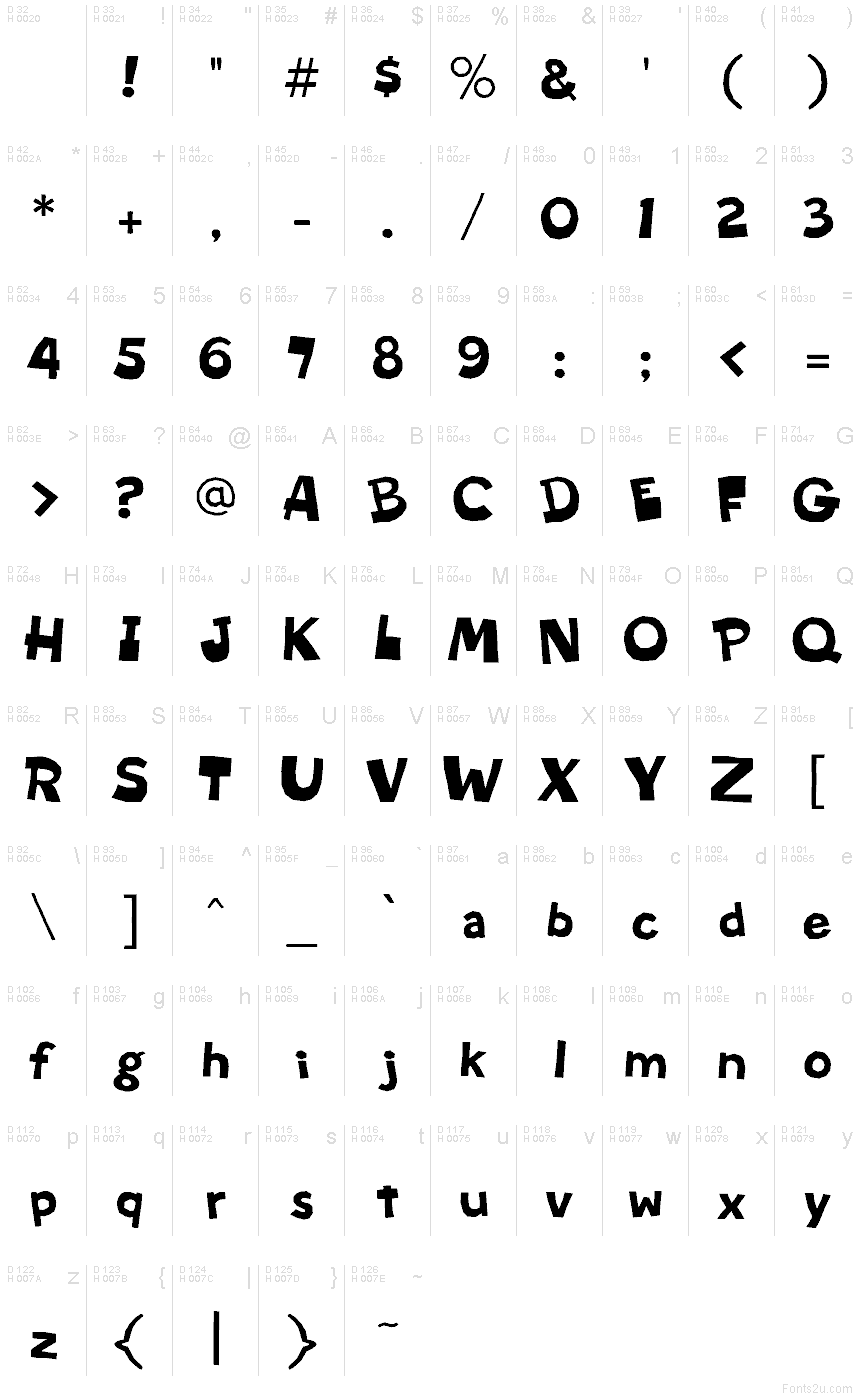
BillGoodwin
BillGoodwin font by Élise Benoît Fonts is a free comic display font with a chunky, hand-cut feel and a lively, off-kilter rhythm. Letters look inked and slightly scuffed, with playful wobble that reads loud and friendly rather than messy. It punches through busy layouts, adding energy without losing legibility at a glance.
Using BillGoodwin, you get cheerful impact for kids’ book covers, classroom posters, snack packaging, YouTube thumbnails, party invites, indie comics, and playful brand marks. This free font shines on big headlines and sticker-style badges; keep sizes generous and tracking snug. Pair with a clean, neutral sans for body copy to let the bouncy forms do the talking.